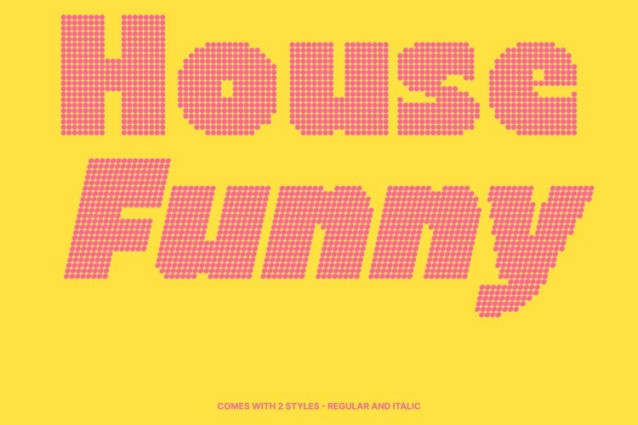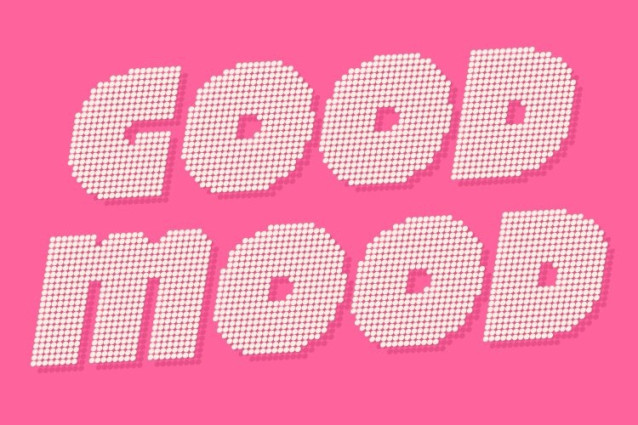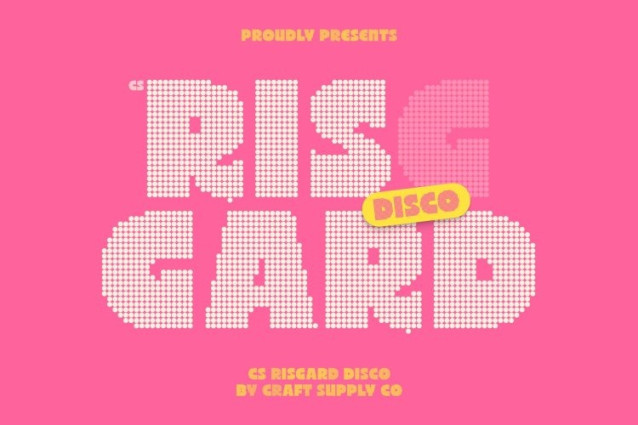
CS Risgard Disco Font
CS Risgard Disco Font – This transforms the strong modern sans serif into a vibrant dotted display font inspired by the glowing lights of disco culture. Each character is constructed from playful circular dots, creating a sparkling texture that instantly adds rhythm and excitement. While the bold structure remains intact, the dotted styling introduces a lively, festive personality that makes the typography feel energetic and eye-catching.
Geometric Strength with Playful Rhythm
The font retains its confident geometric construction and balanced proportions, ensuring clarity and visual impact. The dotted forms add movement and visual rhythm, reminiscent of illuminated dance floors, marquee lights, and retro party graphics. This combination preserves the modern strength of the original design while enhancing it with cheerful motion and personality.
Funky Character with Retro Party Atmosphere
The subtle quirky details of the original design translate beautifully into a disco-inspired aesthetic. The dotted pattern amplifies the font’s funky character, turning its expressive shapes into a vibrant visual experience that feels playful, stylish, and full of life.
Perfect for Posters, Branding, and Event Graphics
This font shines in posters, music visuals, event promotions, packaging, social media graphics, and bold branding projects. Its strong readability paired with sparkling dotted texture makes headlines feel festive and memorable while maintaining a modern edge.